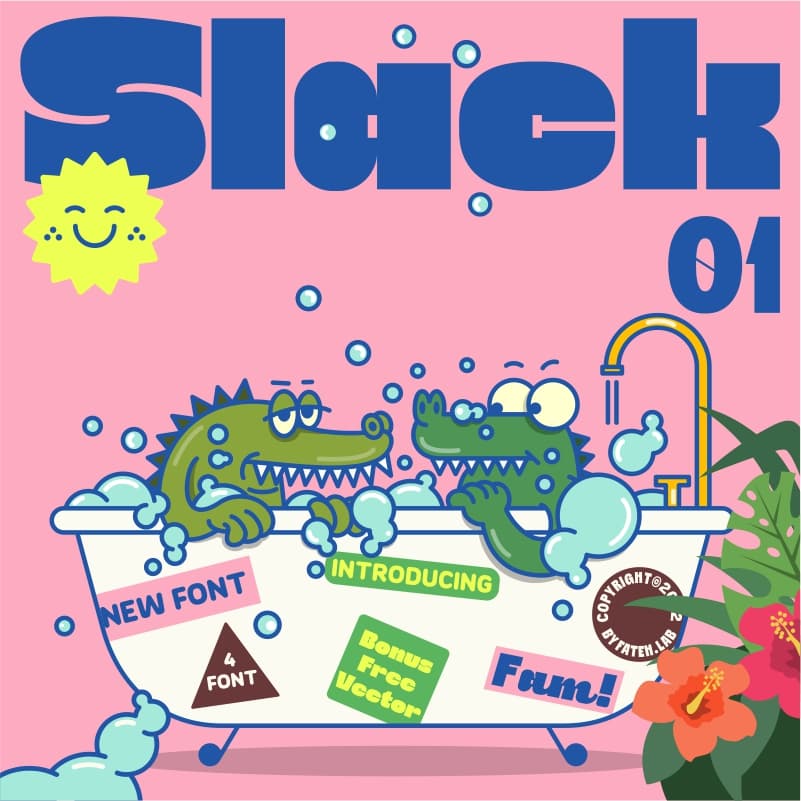
<h3>Slack 01: A Vibrant and Playful Typeface</h3><p>Incorporating a lively spirit and vivid colors, Slack 01 offers a delightful experience for designers seeking to infuse energy and modernity into their projects. Its cheerful style makes it the perfect choice for those brainstorming creative ideas and crafting distinctive artworks.</p><p><br></p><p><strong>Features:</strong></p><ul><li><p>Fun and modern design with vibrant colors.</p></li><li><p>Perfect for innovative and engaging projects.</p></li><li><p>Includes free vector illustration support.</p></li></ul><p></p>